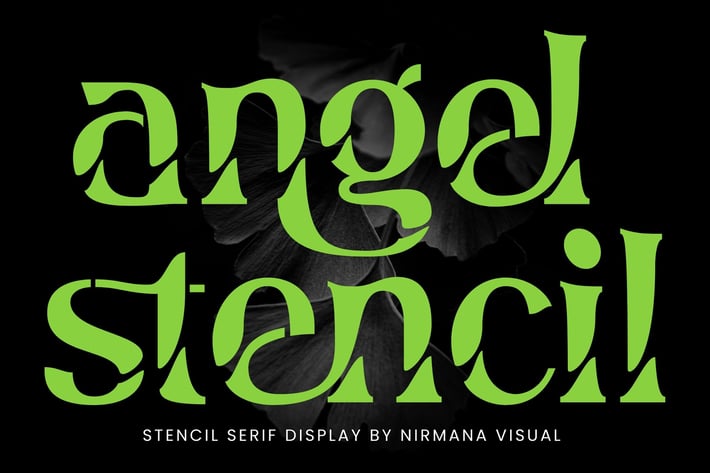
Angel Stencil - Logo font
Angel Stencil , contemporary of serif font,
Angel Stencil offers beautiful typographic harmony for a diversity of design projects, including logos & branding, social media posts, advertisements & product designs.